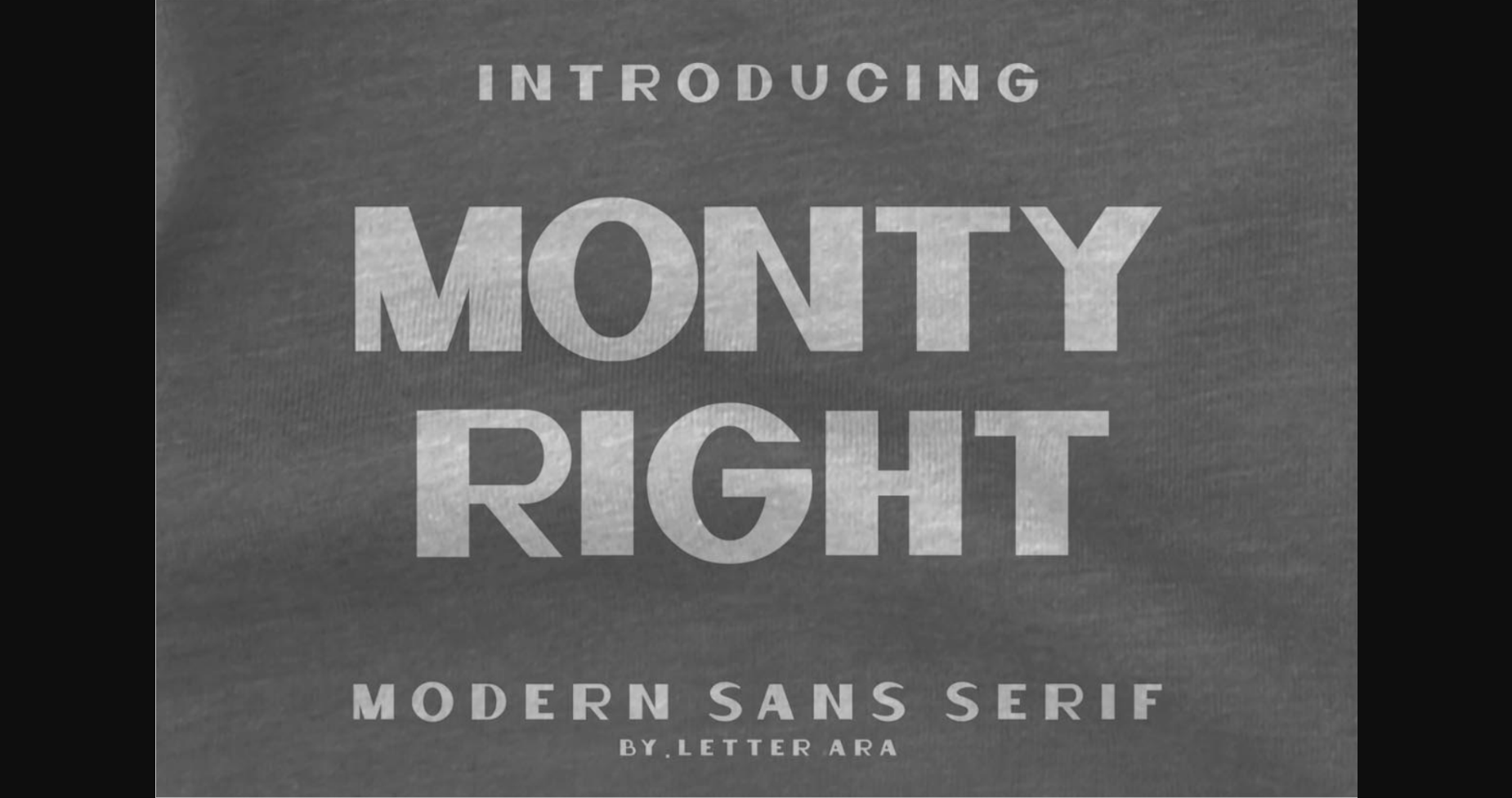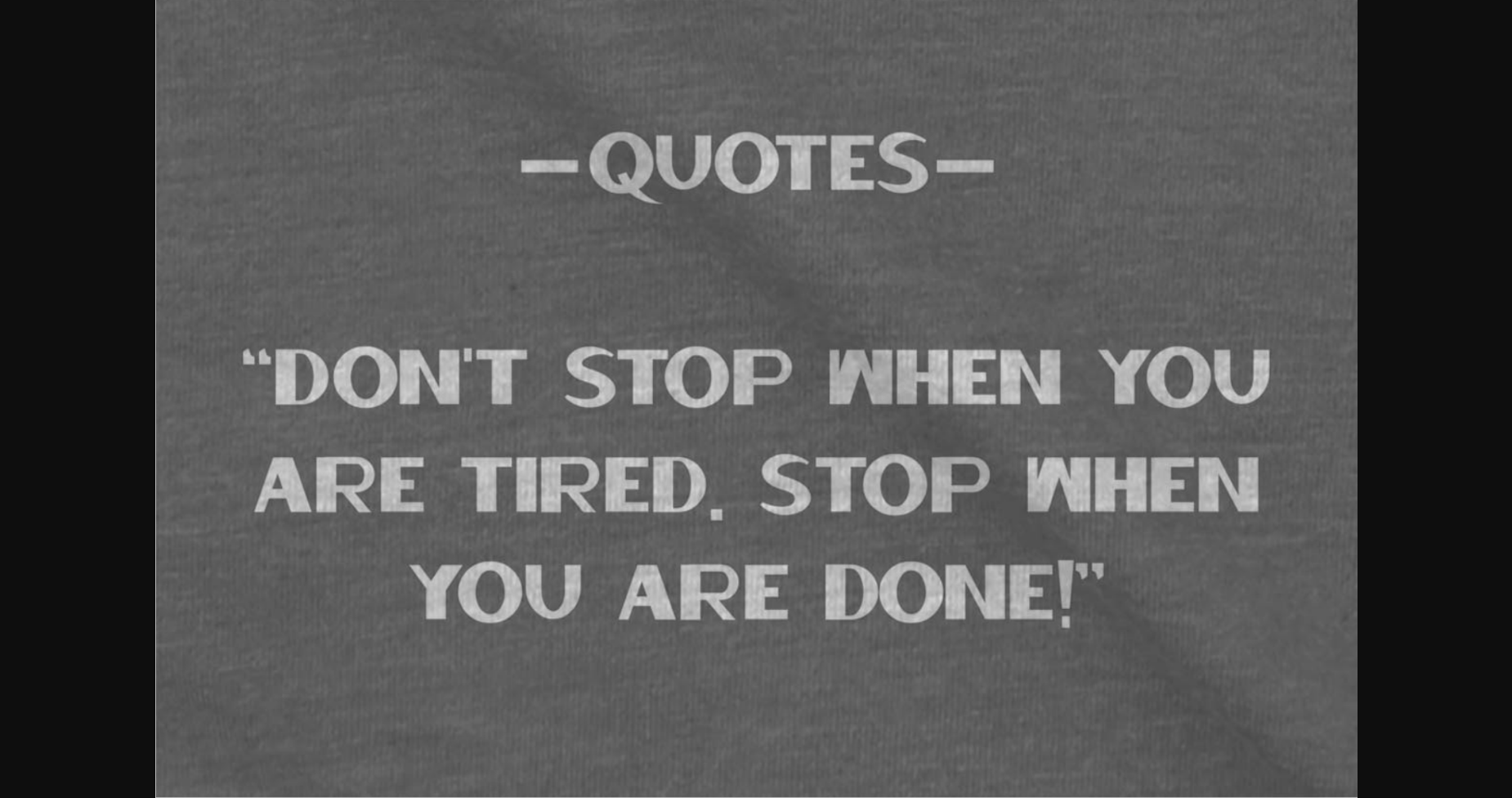
About Monty Right Font
Monty Right is a modern sans serif font that looks bold and solemn, stylish and inviting. Use it for projects that need to stand out and come alive!